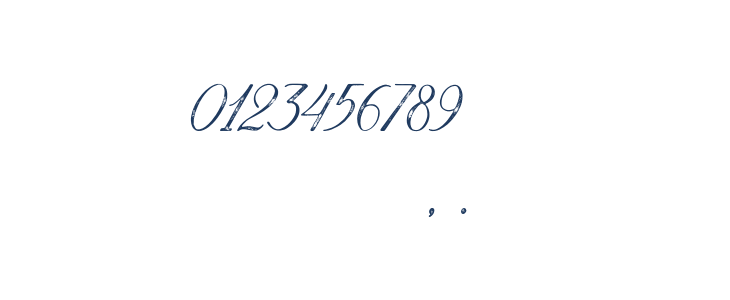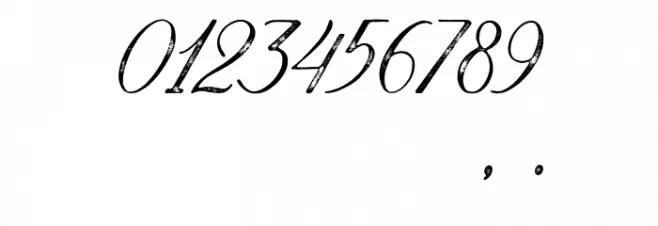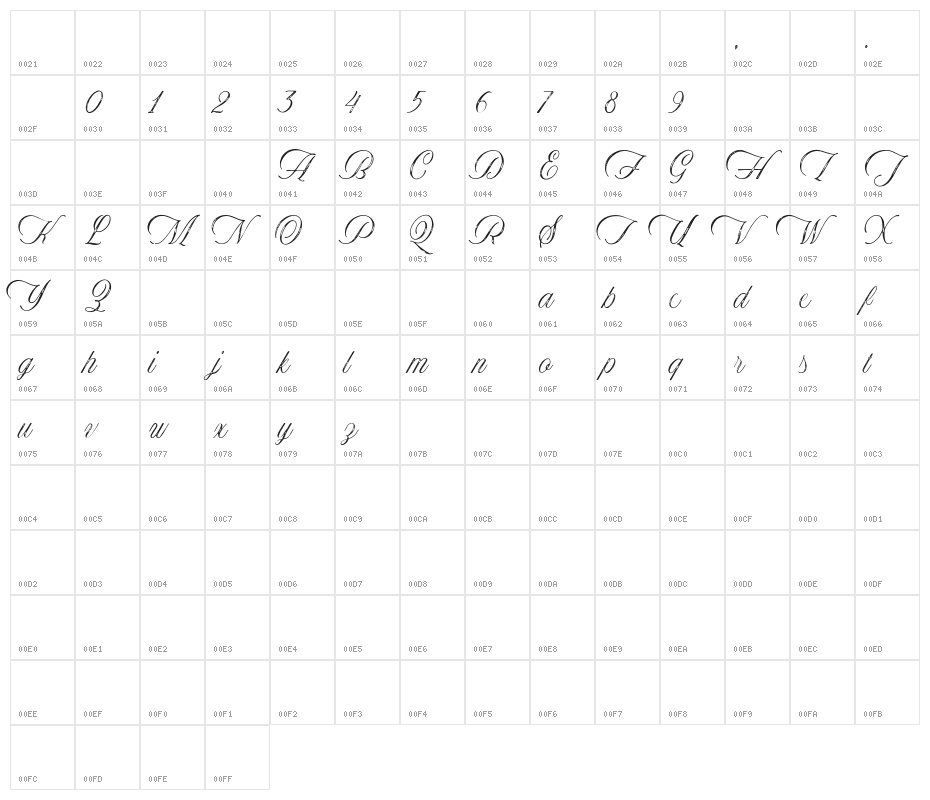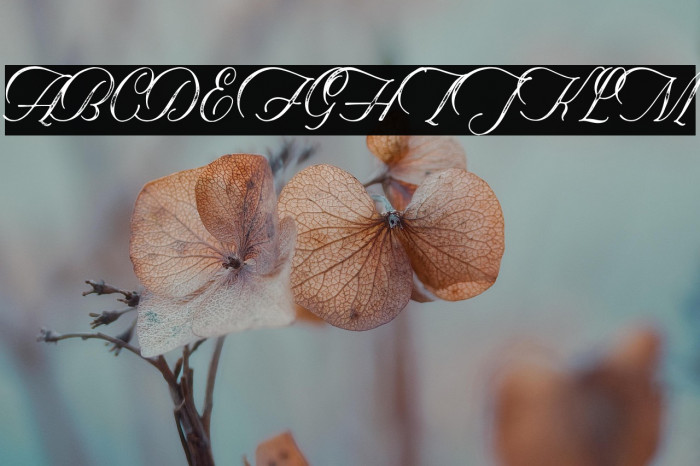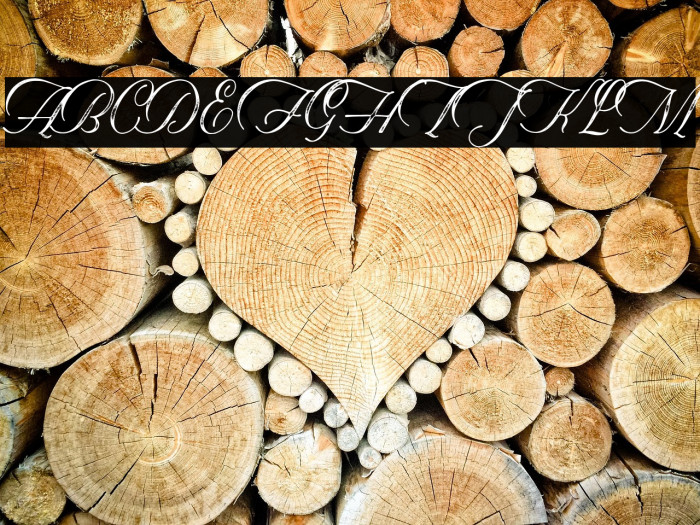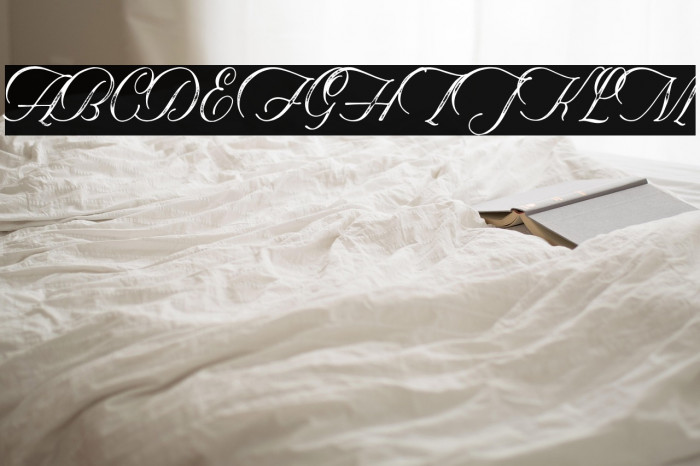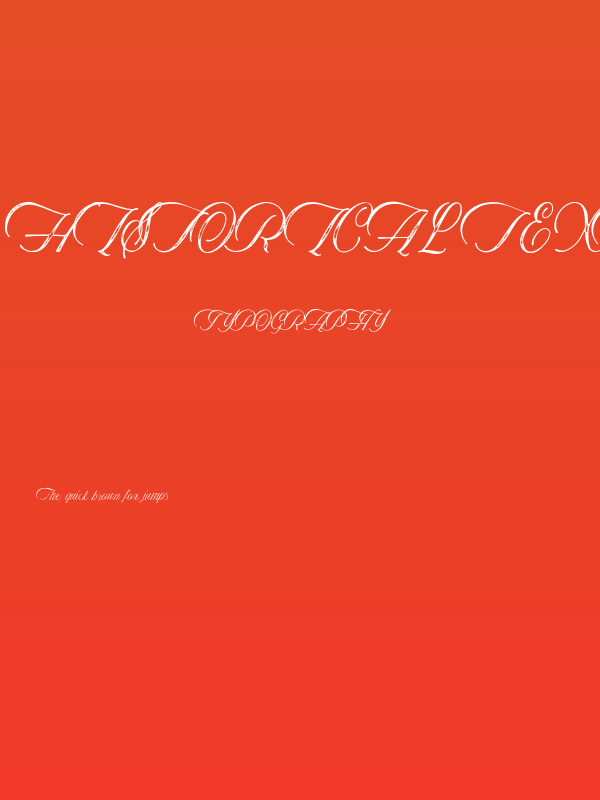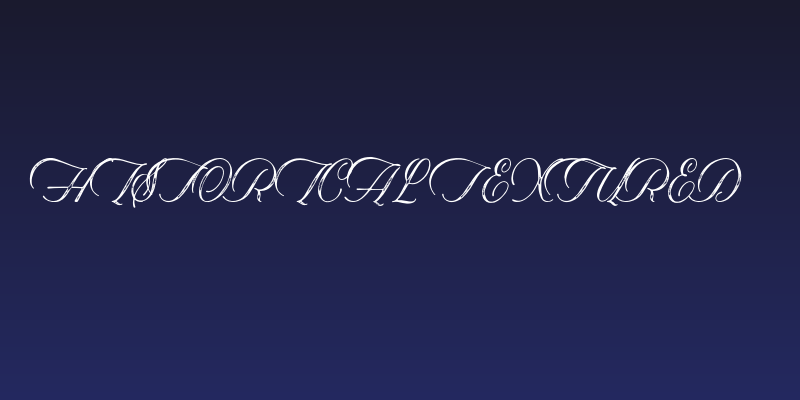
Historical-Textured Font
Historical-Textured Description
This font exudes a historical and textured elegance, characterized by its flowing script style that mimics the fluidity of handwritten calligraphy. The letters are adorned with subtle textures, giving them a vintage and worn appearance, reminiscent of ink on parchment. The uppercase letters are grand and sweeping, while the lowercase letters maintain a graceful and consistent flow. Numbers and punctuation follow the same stylistic cues, ensuring a cohesive look across all characters. The overall design is both sophisticated and approachable, making it suitable for projects that require a touch of historical charm.
| Use Case | Logos, Invitations, Decorative Text |
| Proposed Projects | Ideal for wedding invitations, historical documents, branding for vintage-themed products, and decorative book covers. |